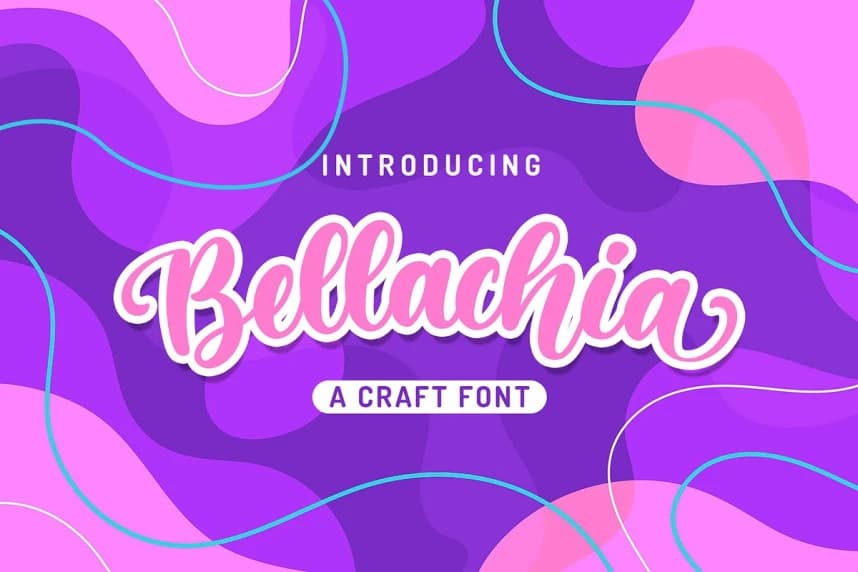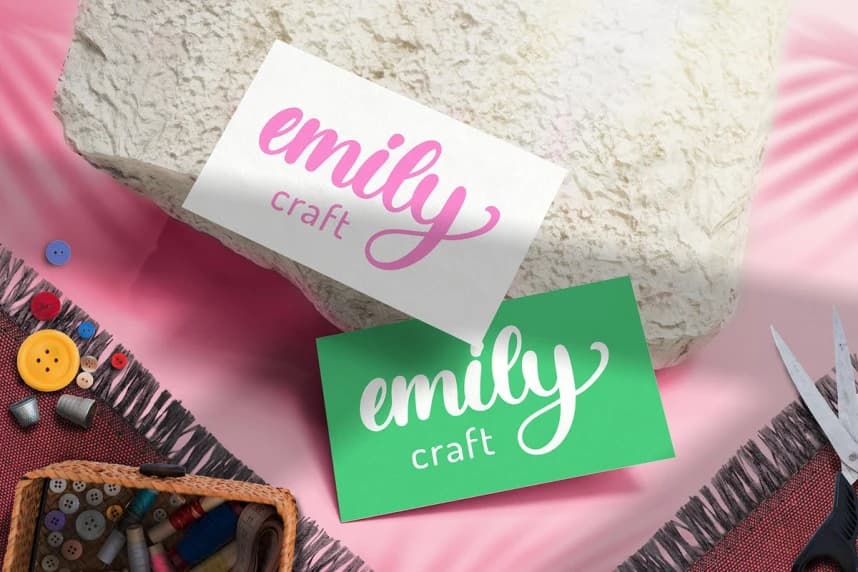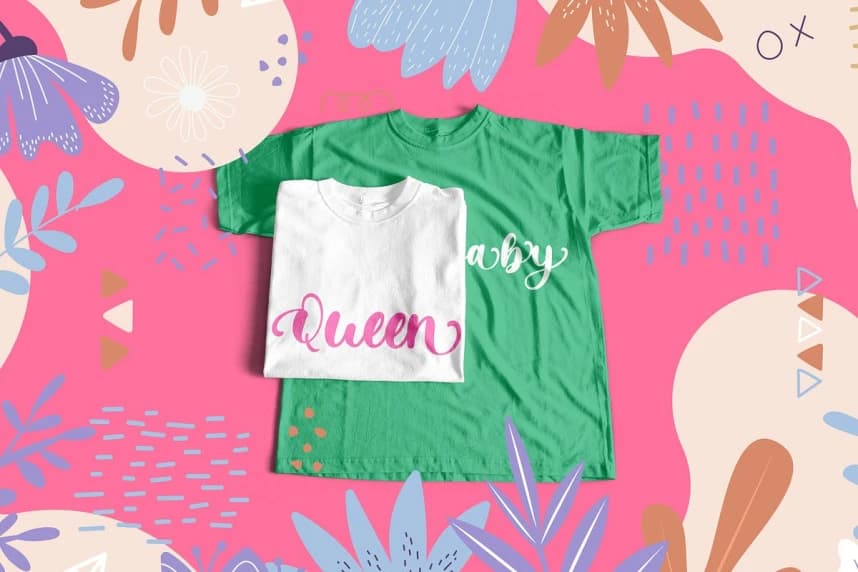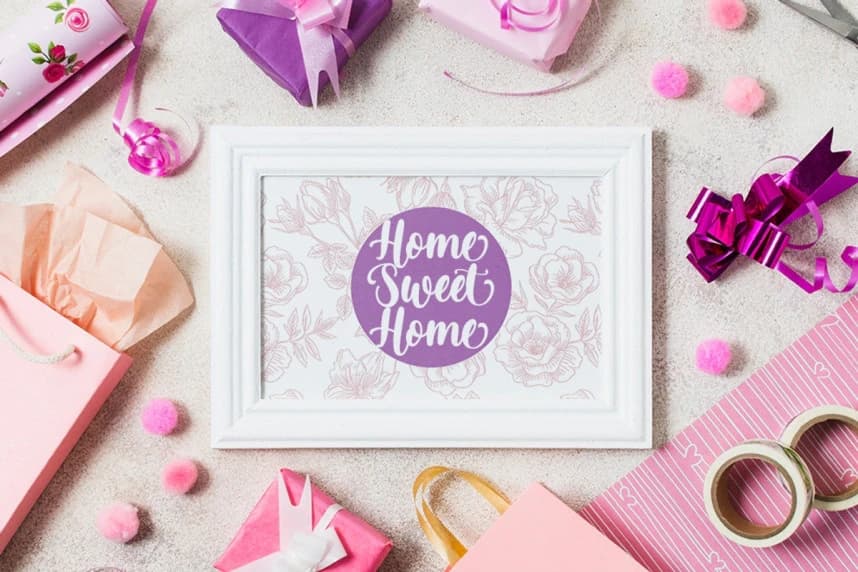
Bellachia Script Font
Bellachia Script Font with a natural Script feel , perfect for any creative design. This handmade font will make your design has a beautiful natural touch for each details. It is perfect for any design project as Invitation,logo, book cover, craft or any design purposes.